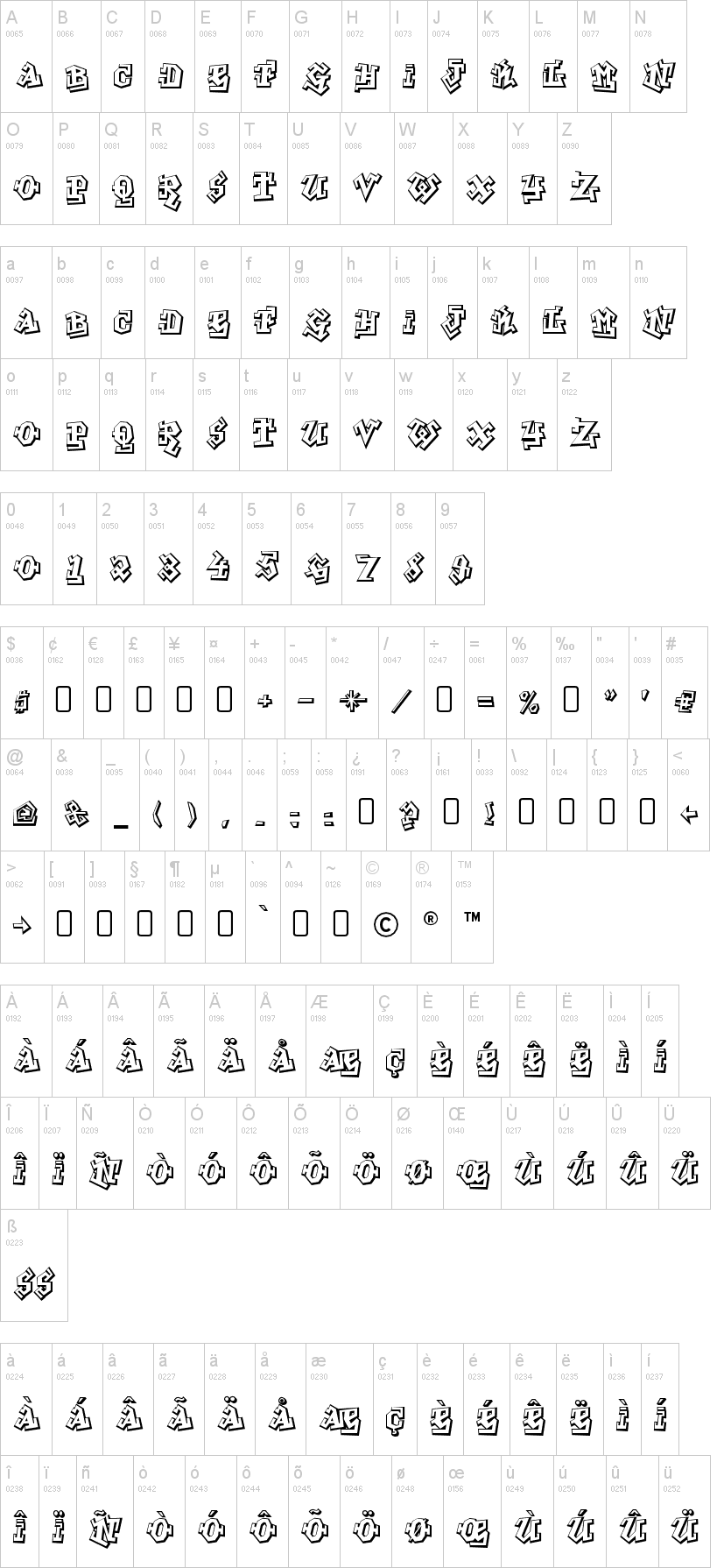
Шрифт Graffiti Treat
Graffiti Treat is a staggered, angular, graffiti inspired display font. Don't forget to read the files inside the zip for details. Updated in 2012.